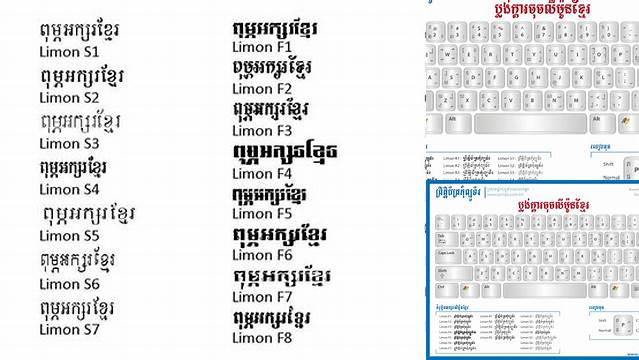
Khmer Font Limon F1: Free Download & Usage Guide
Hey guys! Looking to spice up your designs with a cool Khmer font? Then you've probably heard about Limon F1. It's a pretty popular choice, and for good reason! This article will walk you through everything you need to know about the Limon F1 Khmer font, where to download it for free (and safely!), and how to use it in your projects. Let's get started!
1. Introduction to Khmer Fonts
Before diving into Limon F1 specifically, let's talk a bit about Khmer fonts in general. Khmer is the language of Cambodia, and it has its own unique alphabet and writing system. Using the correct font is essential to ensure that your text is displayed correctly and is easily readable by Khmer speakers. There are many Khmer fonts available, ranging from traditional styles to more modern and decorative ones. Each font has its own personality and is suitable for different purposes. Understanding the basics of Khmer fonts will help you choose the best one for your needs, and appreciate the intricacies of the Limon F1 font we're about to explore.
2. What is Limon F1?
Limon F1 is a specific Khmer font known for its modern and clean design. It's a sans-serif font, which means it doesn't have the small decorative strokes (serifs) that you find on some other fonts like Times New Roman. This makes it a great choice for body text, headlines, and other applications where readability is key. The font is known for being easy on the eyes and pleasant to read, even at smaller sizes. This makes it a versatile option for everything from websites and documents to posters and presentations. It’s design is simple yet elegant, and this makes it a popular choice for designers looking for a modern Khmer font.
3. Key Features of Limon F1 Font
So, what makes Limon F1 stand out from the crowd? Well, for starters, it's incredibly legible. The characters are well-defined and spaced appropriately, ensuring that readers can easily distinguish between them. Also, it supports a wide range of Khmer characters, including the various vowels, consonants, and diacritics necessary for accurate Khmer typography. This comprehensive character set means you can use Limon F1 for virtually any Khmer text. The font also often includes Latin characters, which makes it suitable for bilingual designs where you need to display both Khmer and English text. Finally, its clean and modern design lends itself well to various applications.
4. Why Choose Limon F1 for Your Projects?
There are several reasons why you might choose Limon F1 over other Khmer fonts. Its modern aesthetic is a big draw for many designers who want to create a contemporary look. The font's excellent legibility makes it ideal for body text, ensuring that your message is easily understood. Its versatility means it can be used in a wide range of projects, from websites and mobile apps to print materials and presentations. It works well for both headlines and body text, making it a practical choice for any design project. The comprehensive character set and the availability of Latin characters (in some versions) further enhance its appeal.